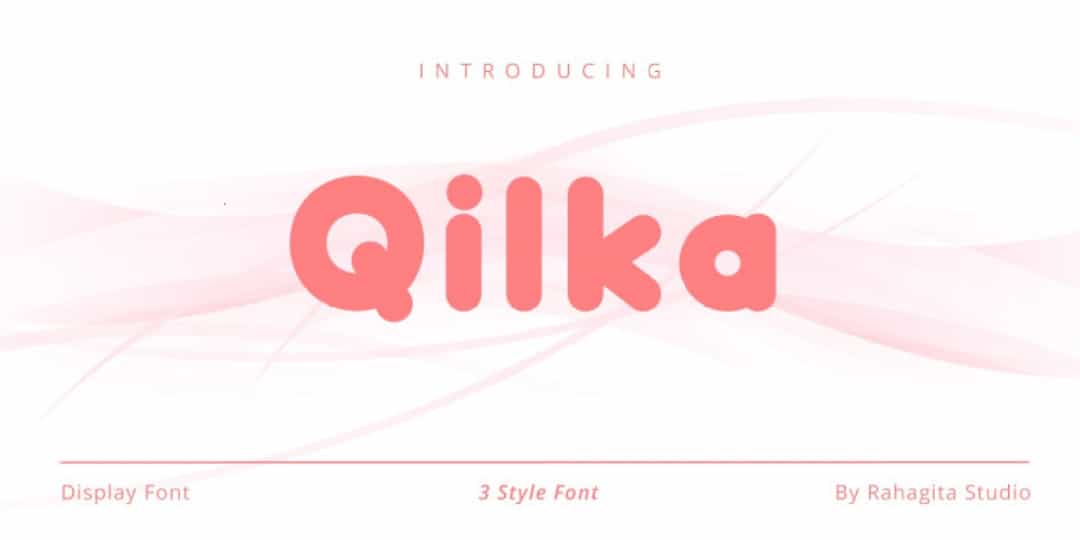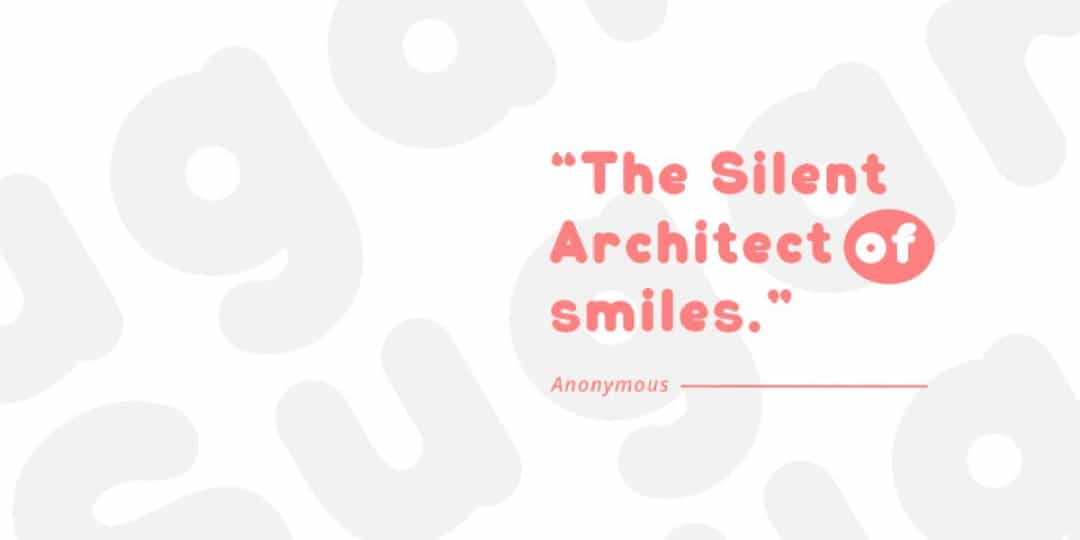
Qilka is an expressive sans-serif designed to make a powerful impactful statement in branding, logos, flyers and logos projects. Ideal for branding purposes as well as flyers with vibrant characters to capture attention quickly.” It can even add some whimsicality and playfulness! Qilka adds vibrancy and personality to designs which require imagination and excitement!